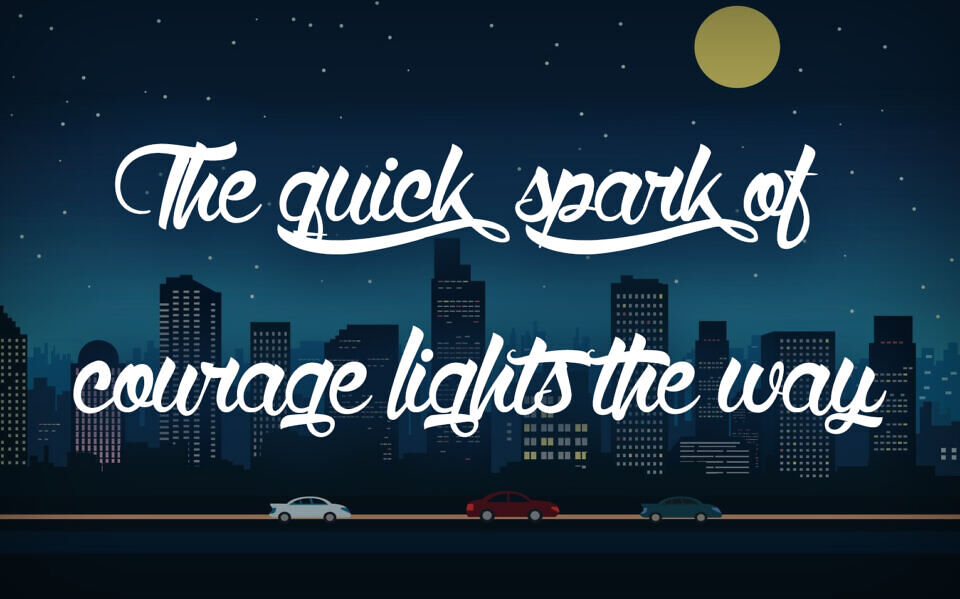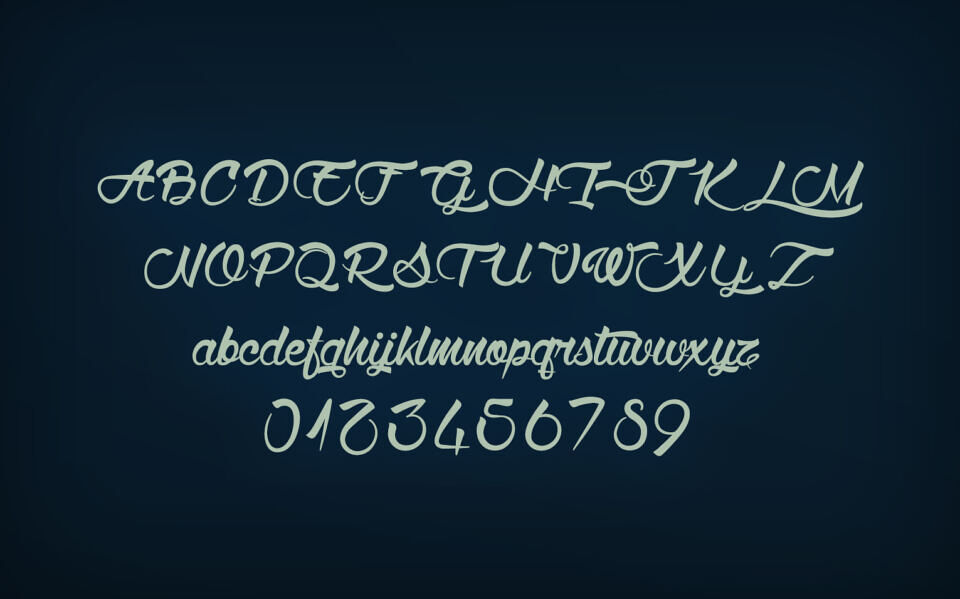
Wolf in the City Font is a sophisticated, calligraphic script typeface with an elegant, urban flair. Its flowing, cursive letterforms and delicate swashes exude charm, perfect for logos, posters, and branding. Available in Regular and Light styles, it includes uppercase, lowercase, numerals, and symbols.